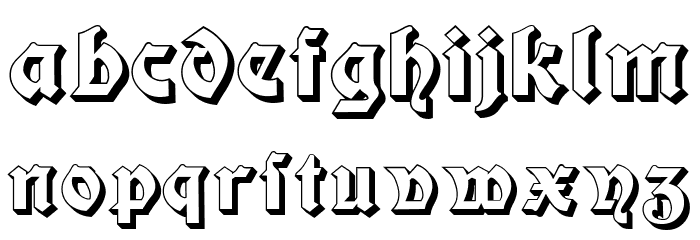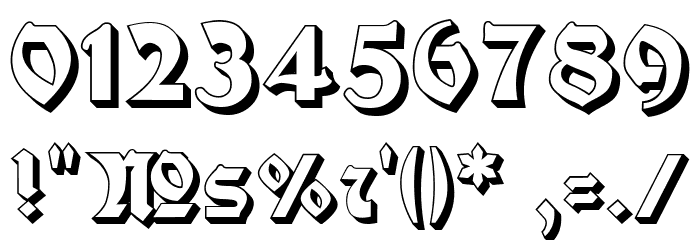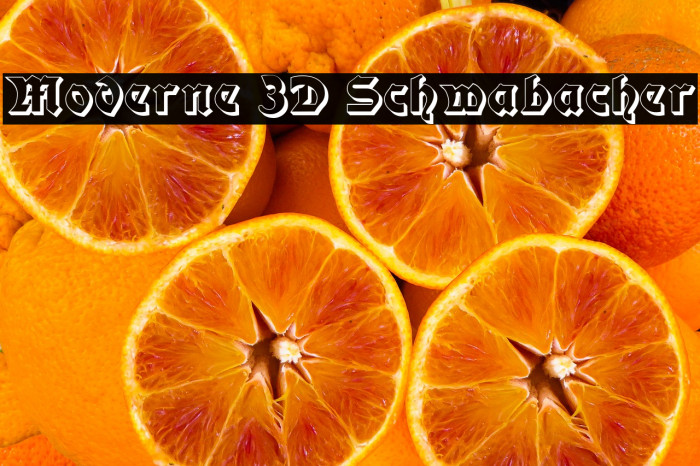
Moderne 3D Schwabacher Font
This font features a bold and striking 3D effect, reminiscent of traditional Blackletter styles with a modern twist. The characters are angular and sharp, with a distinct shadow that gives a sense of depth and dimension. The uppercase letters are particularly ornate, with intricate details that enhance their decorative appeal. The lowercase letters maintain the same stylistic elements, providing a cohesive look throughout the typeface. Numbers and special characters are equally stylized, ensuring consistency across all text elements. This font's unique design makes it stand out, offering a blend of historical elegance and contemporary flair.
A bold, 3D Blackletter-inspired font with a modern twist and decorative details.
- Proposed Projects: Ideal for projects that require a dramatic and eye-catching typeface, such as posters, logos, book covers, and branding materials.